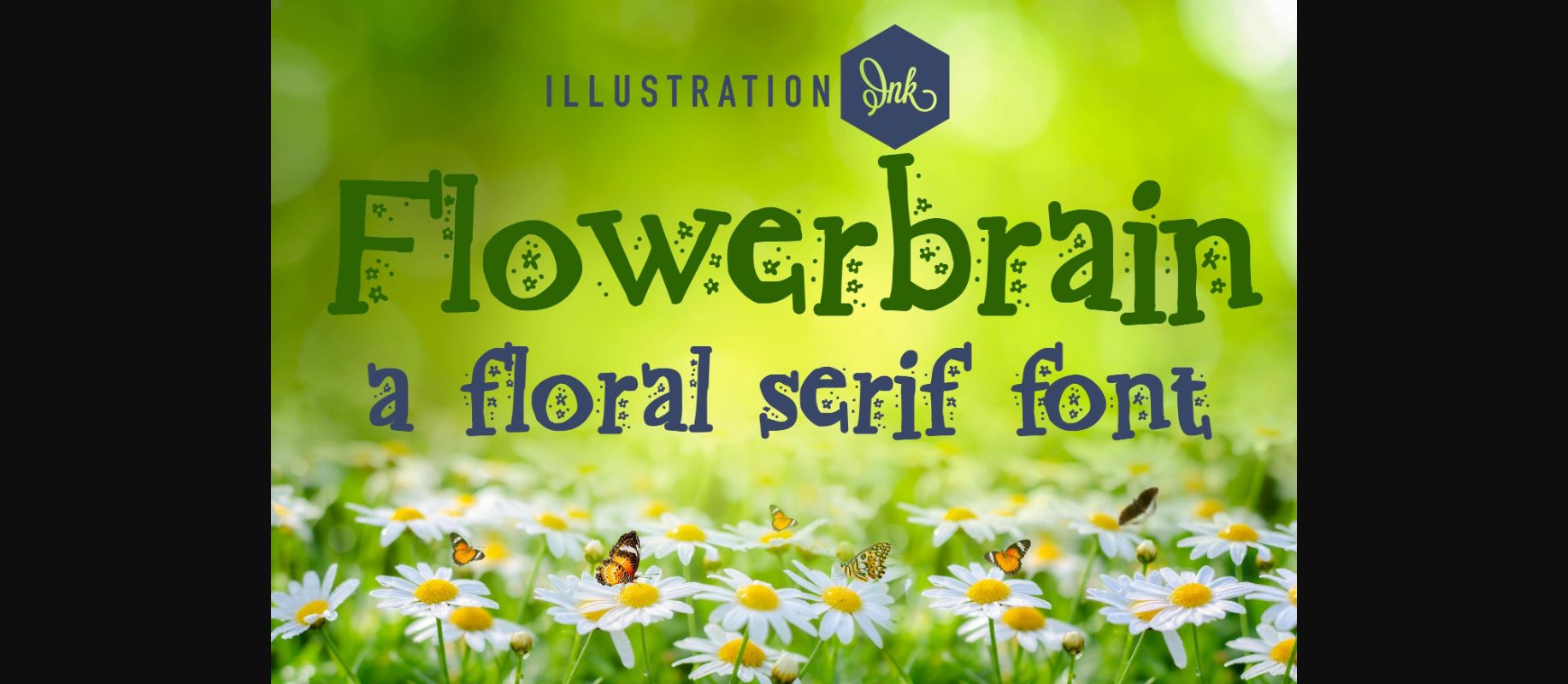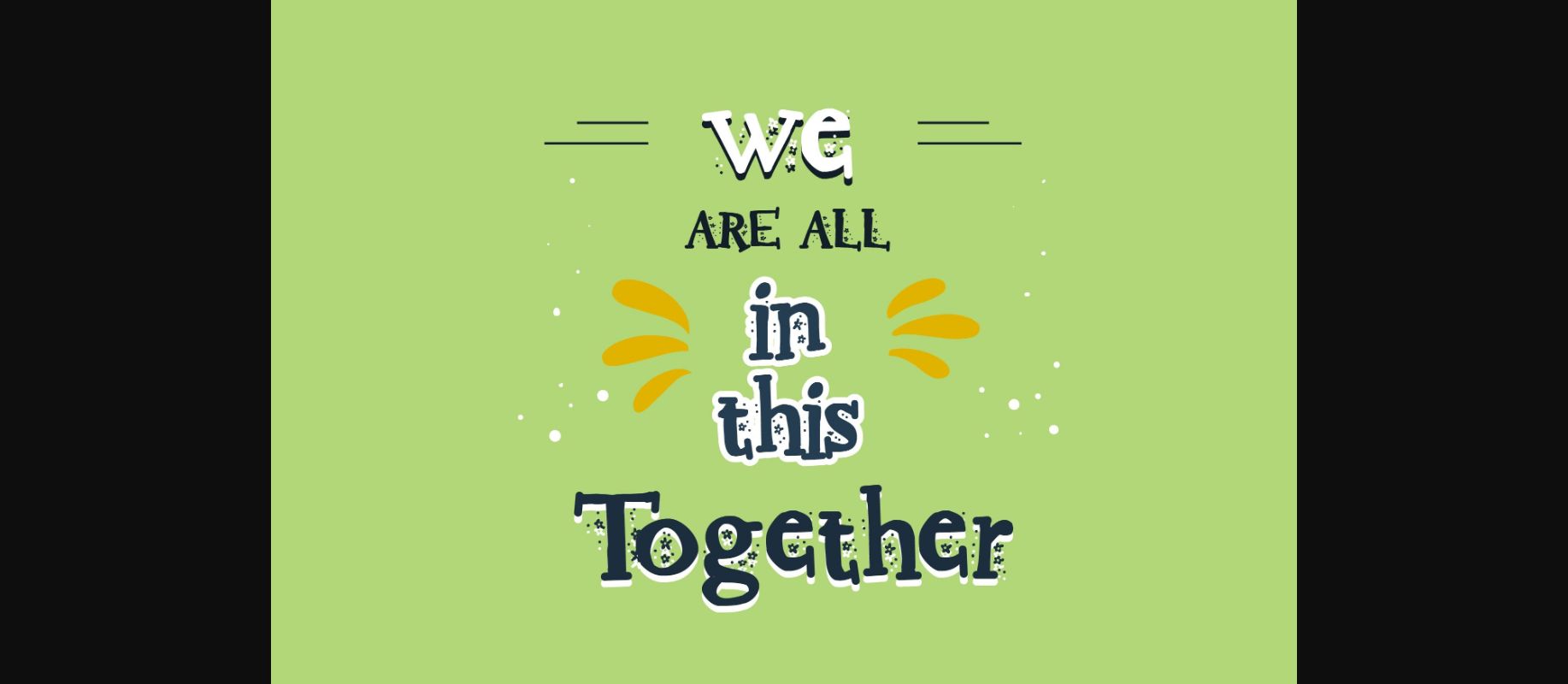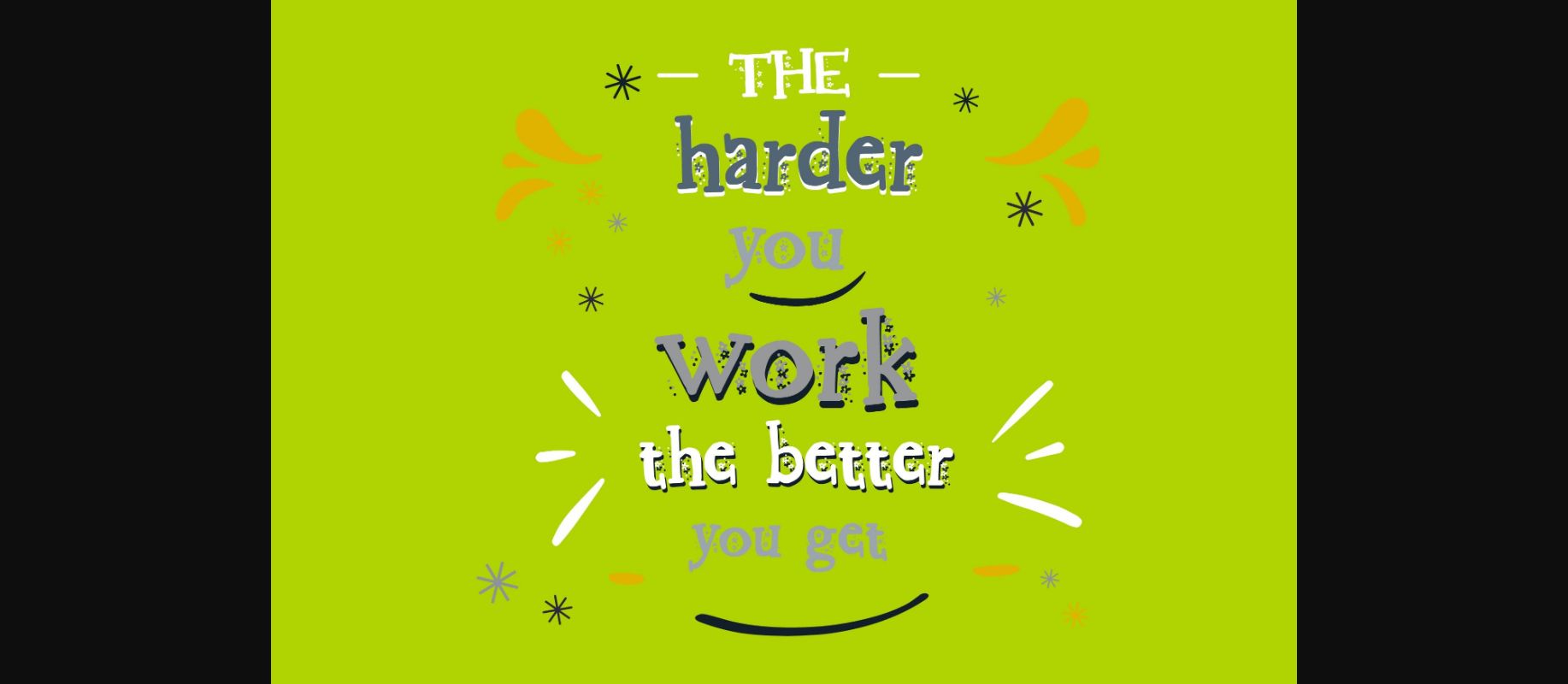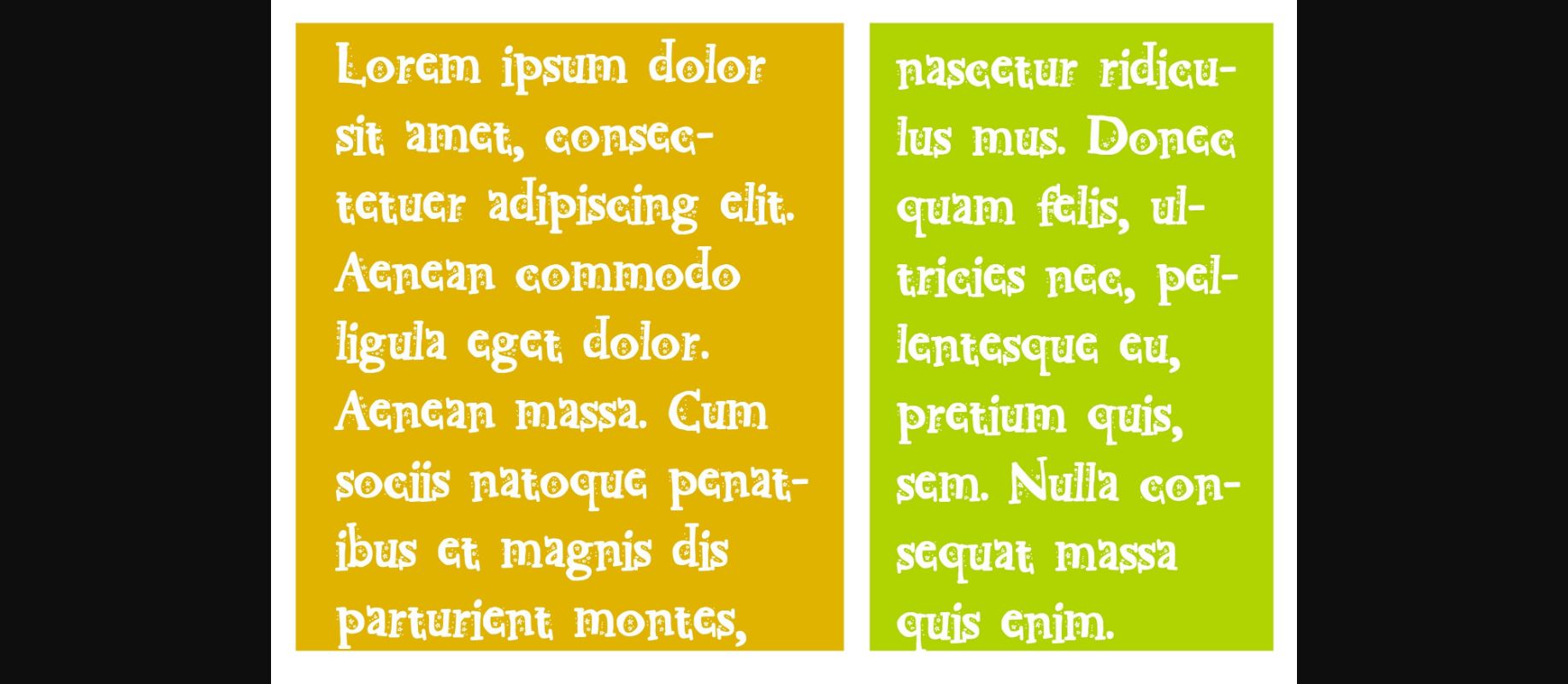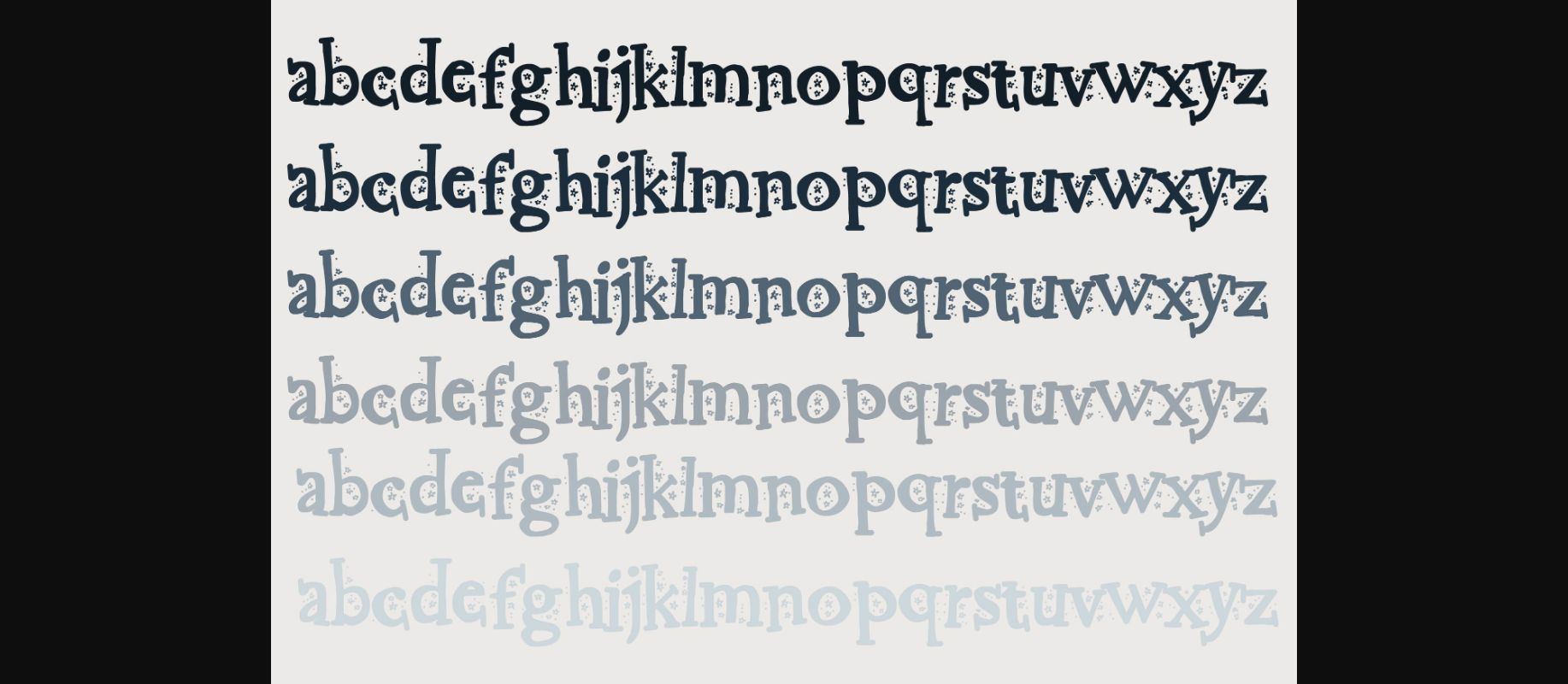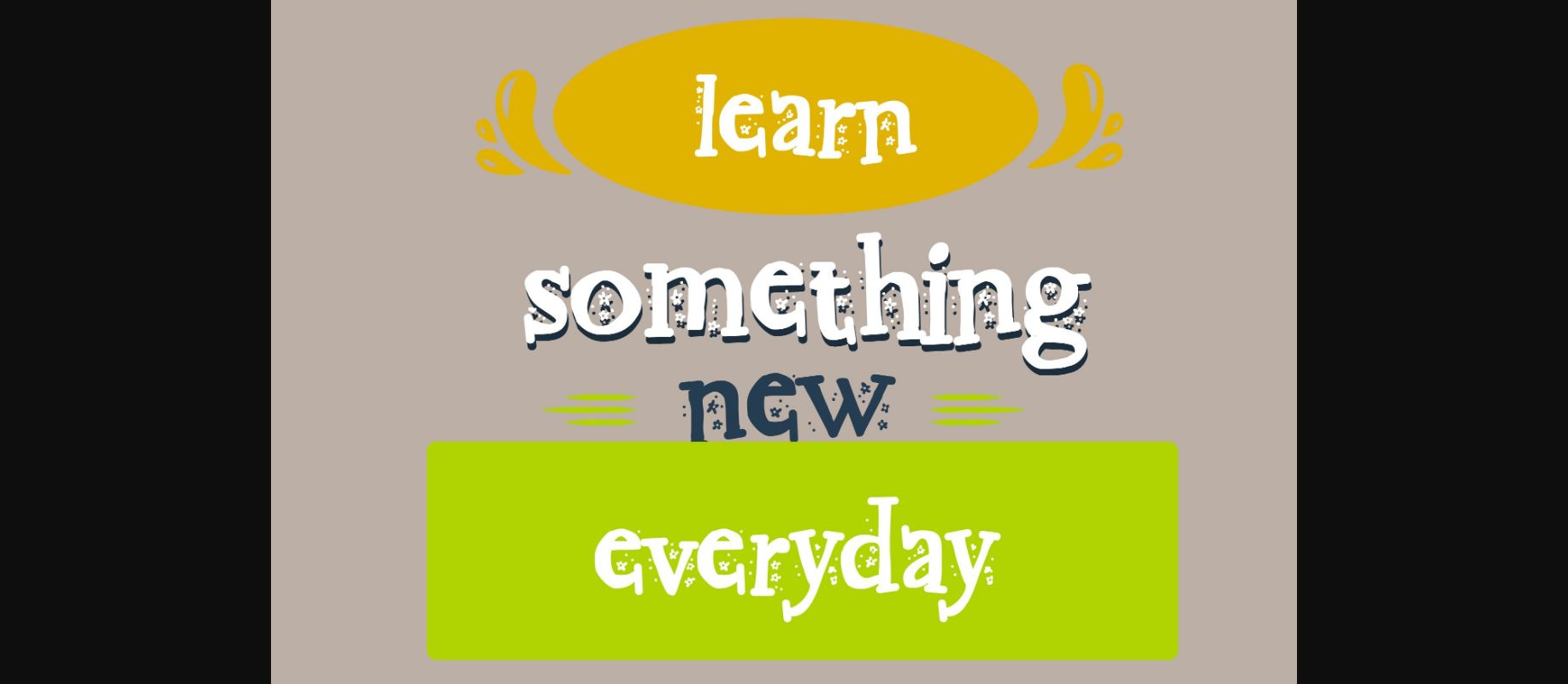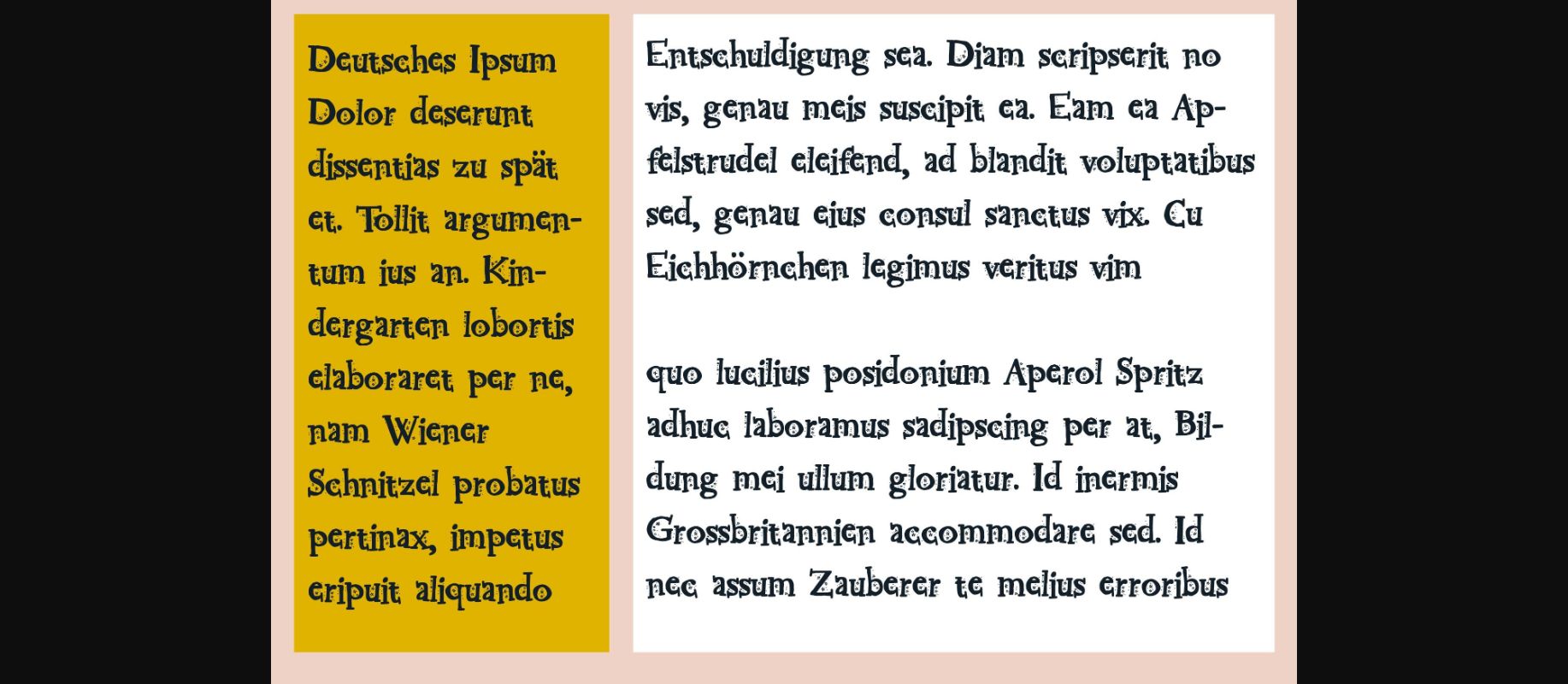
Flowerbrain Font
About Flowerbrain Font
This crafty courier-type font features bouncy lettering with flowers throughout.
A hand-crafted font is a font that is designed to feel unique and crafty. It is often used for invitations, greeting cards, and other items. Hand-crafted fonts are typically informal and they can be used for a variety of purposes.
It’s hand-crafted, which means that each letter was individually drawn with care.
It has a unique, organic look that is sure to stand out.
It’s perfect for a variety of projects, from logos and websites to everyday text.